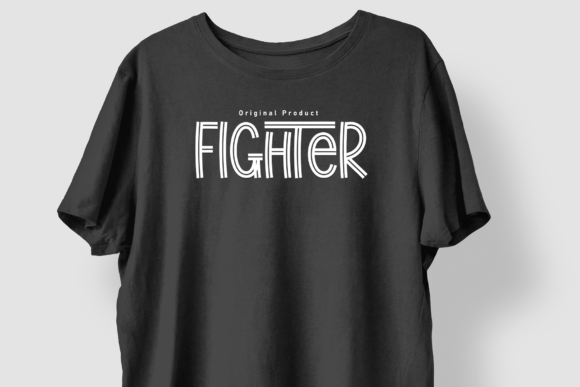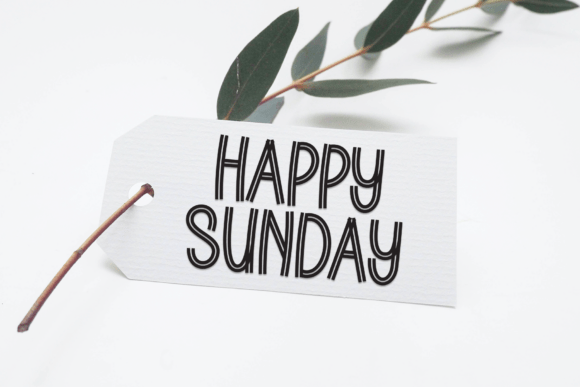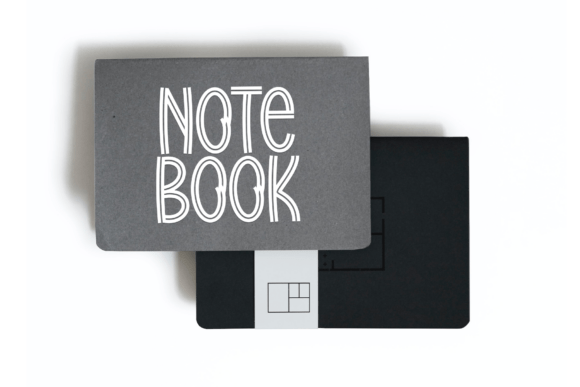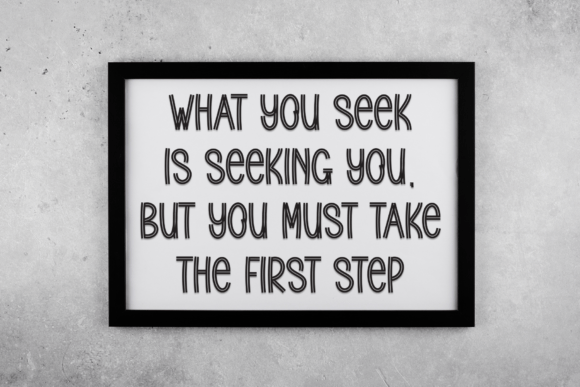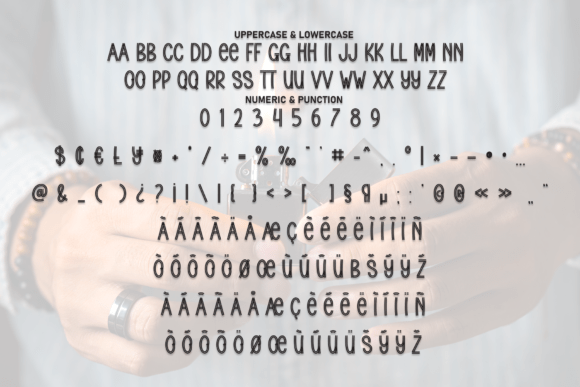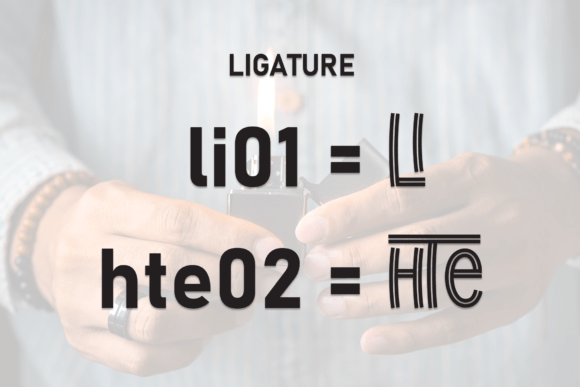
Introduction to Lighter Font
Dive into the world of typography with an adorable and welcoming handwritten display font that is the very embodiment of warmth and affability.
Overflowing with enchanting charisma, this font becomes the ideal pick for crafting magical wedding invitations, mesmerizing cards, or any design project that requires a dash of jovial expressiveness The exquisite design of this font imbues an everlasting charm, guaranteeing to render your creations unforgettable.
Key Features of Lighter Font